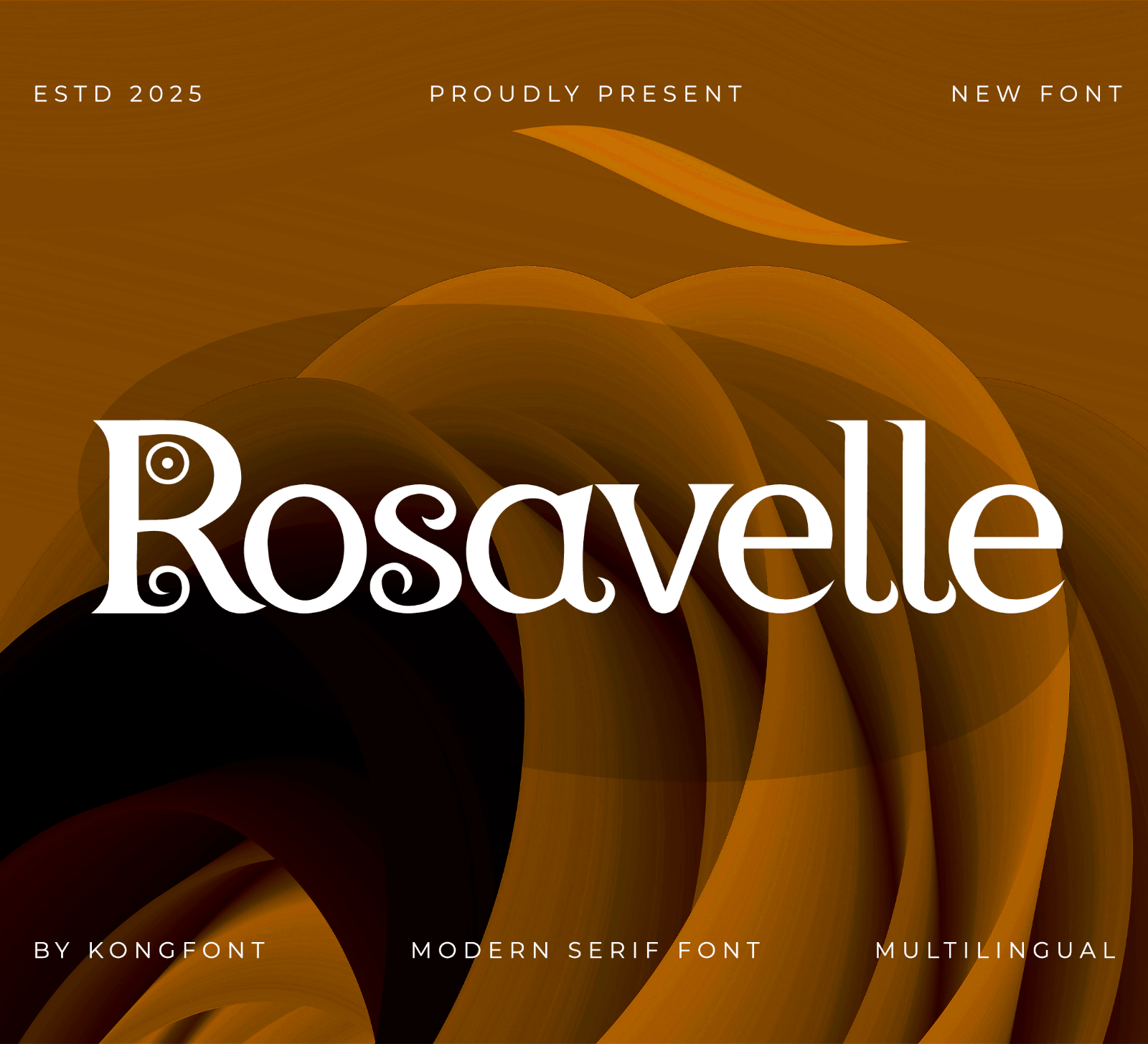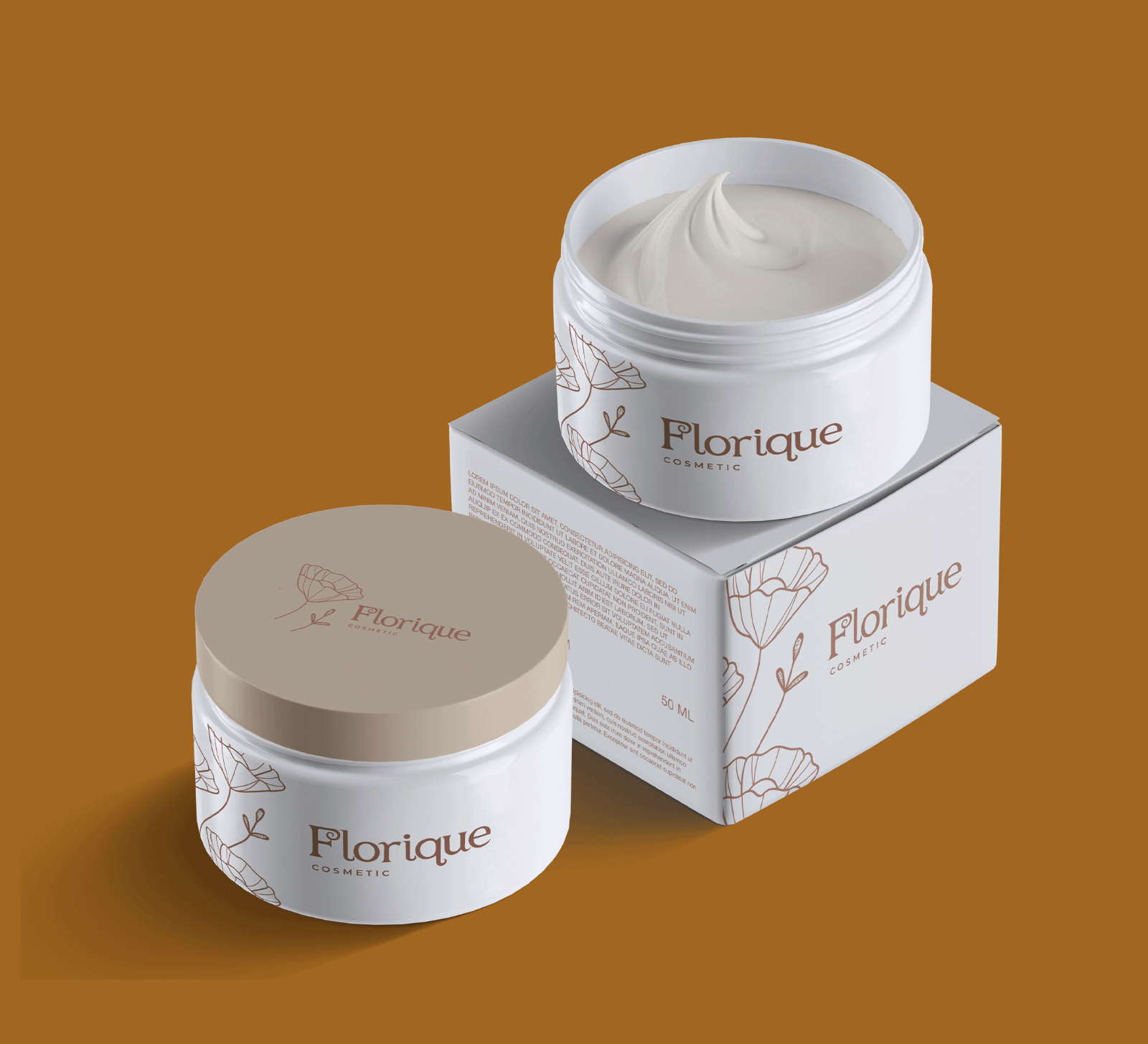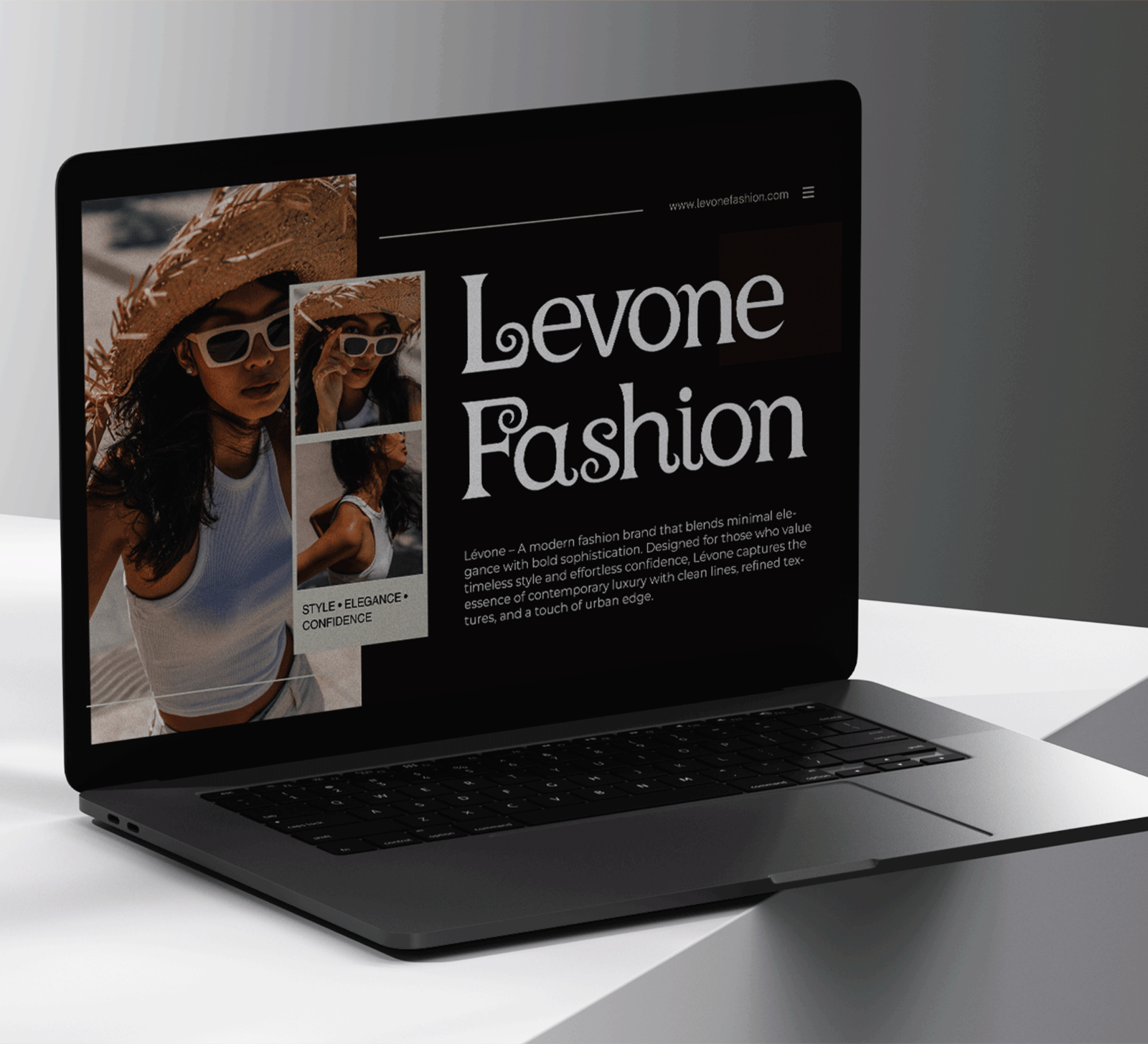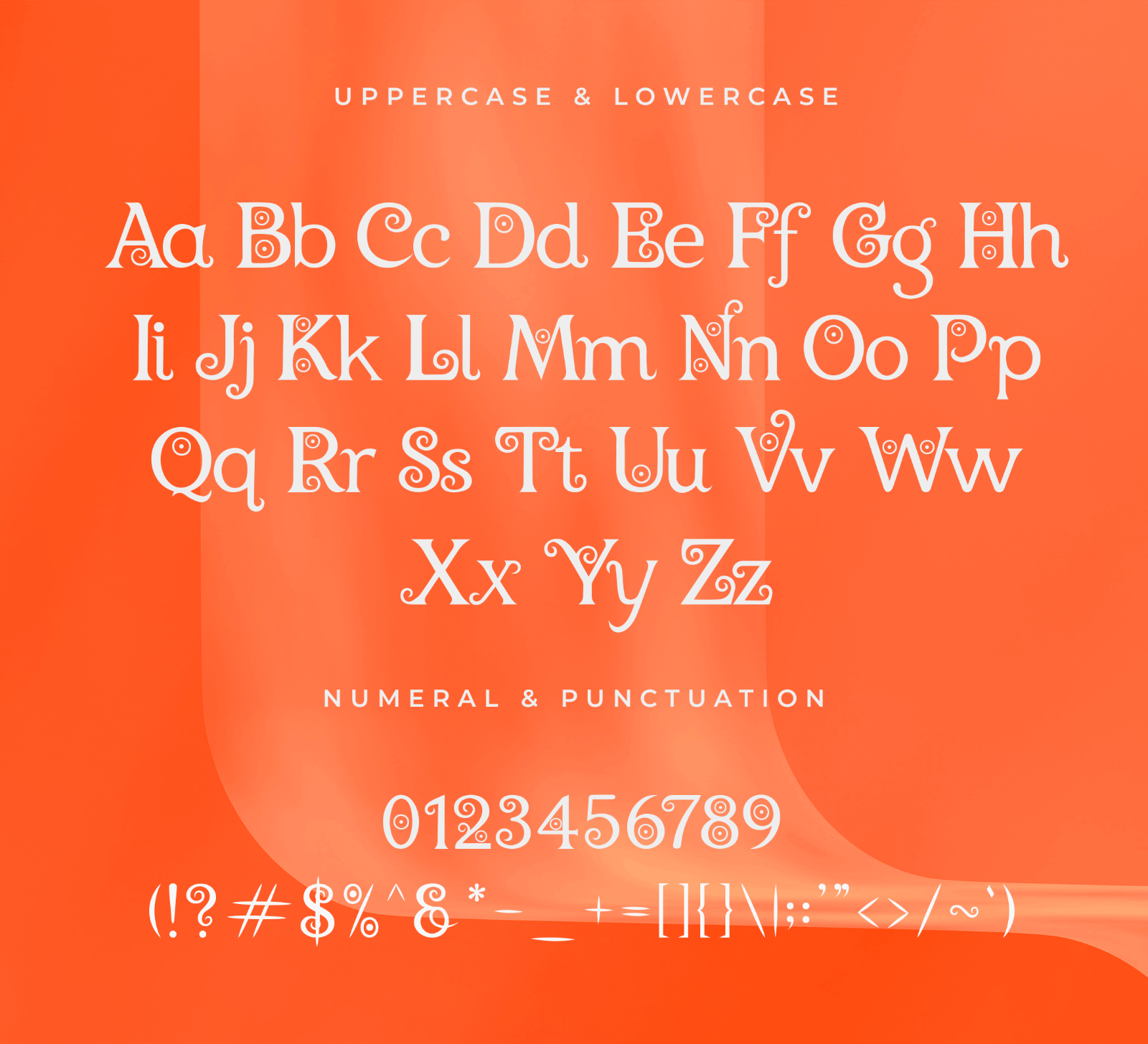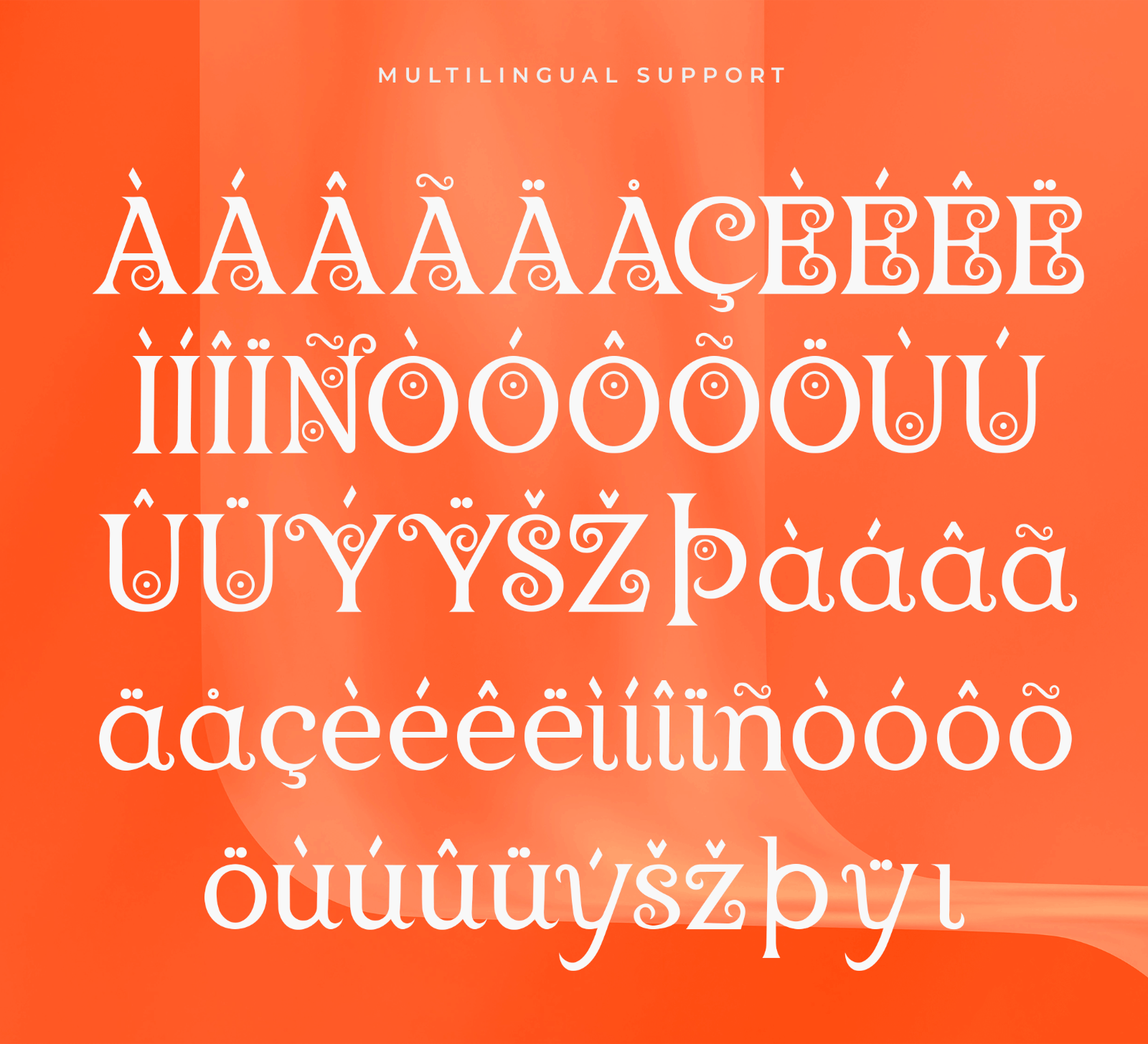
Rosavelle is a modern serif font with bold letterforms, elegant curves, and a refined classy style. Its clean and stylish look makes it perfect for branding, headlines, and creative display projects that need a sophisticated touch.
• Branding
• Logos
• Business cards
• Blog headers
• Quotes
• Editorial titles
• Packaging
• Creative typography